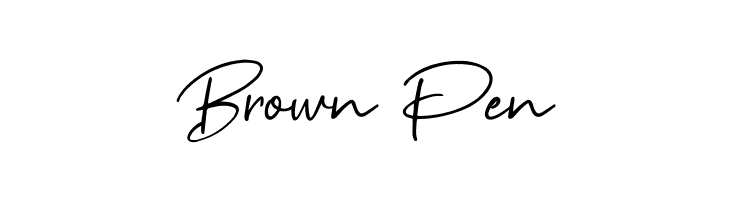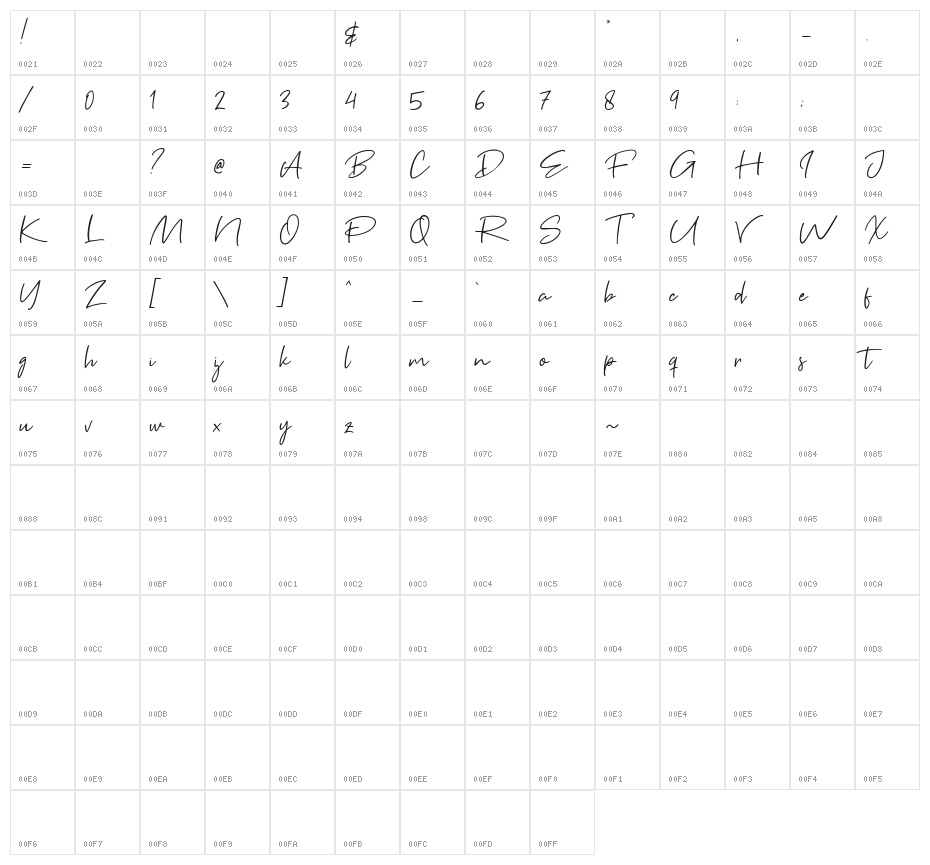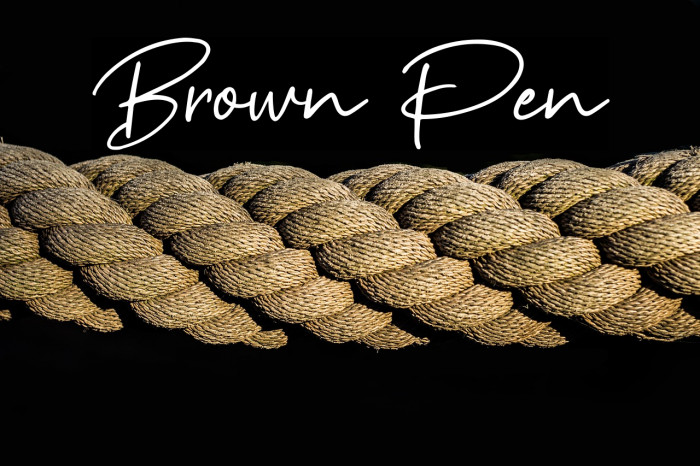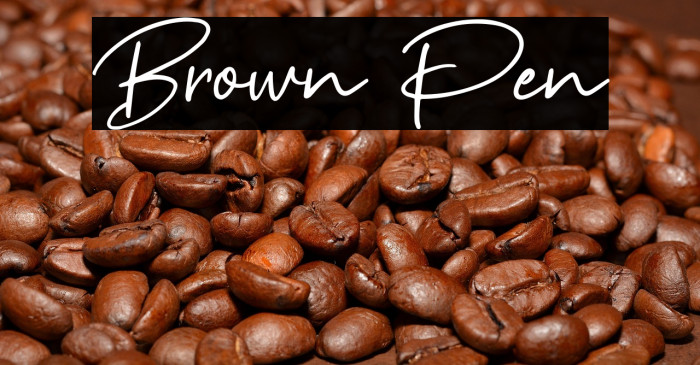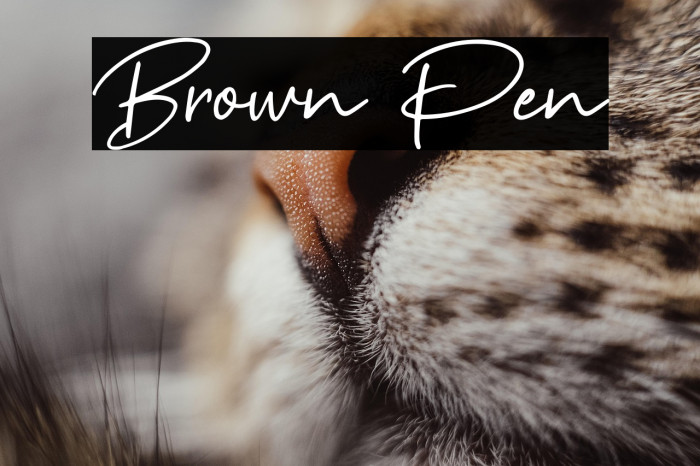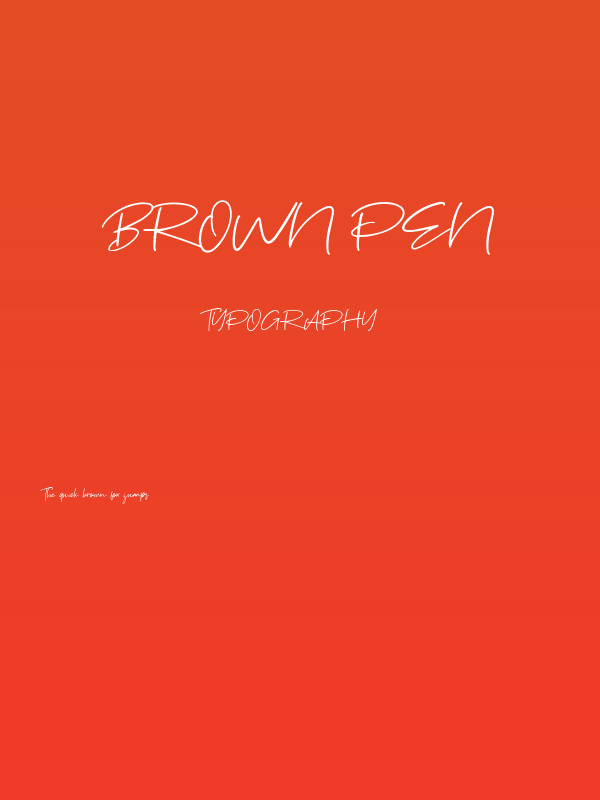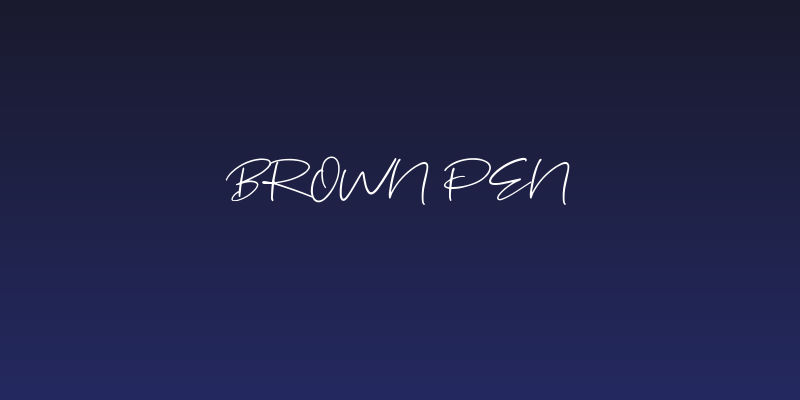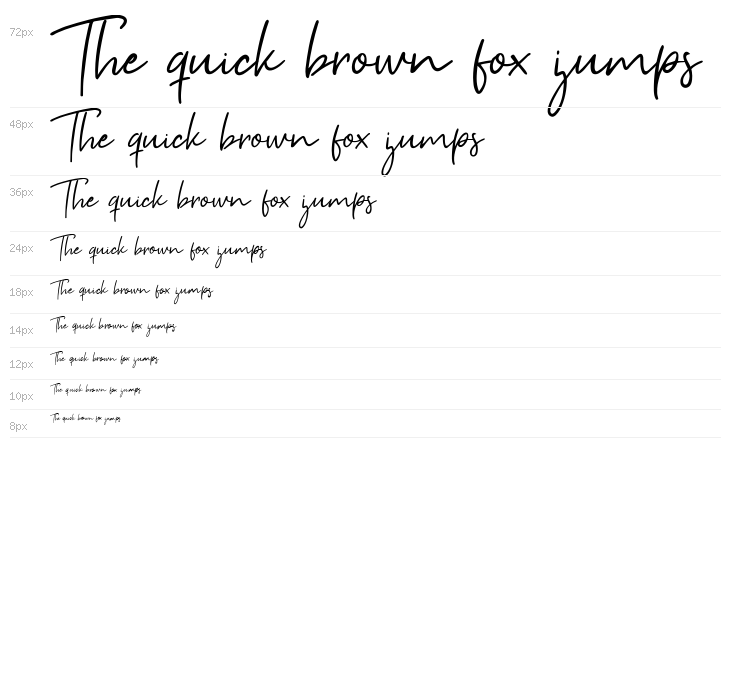
Brown Pen Font
Brown Pen Description
A flowing, handwritten script font with a casual and elegant style, featuring smooth curves and a natural pen-like appearance.
| Overall Style | Casual, Elegant |
| Use Case | Logos, Invitations, Personal notes |
| Proposed Projects | Invitations, greeting cards, personal branding. |